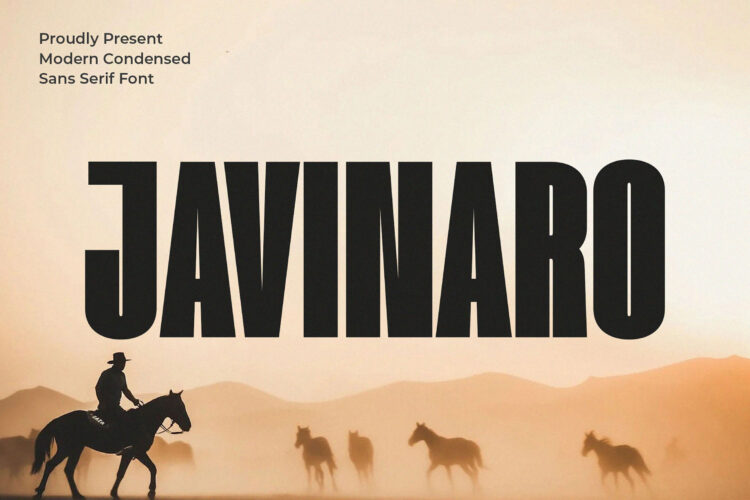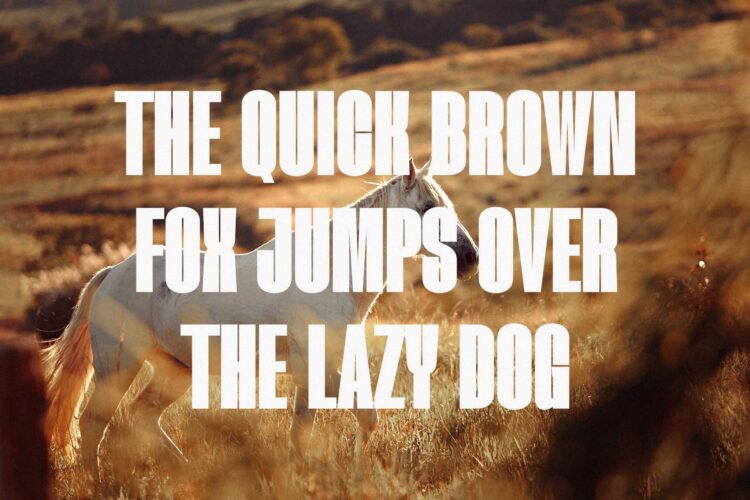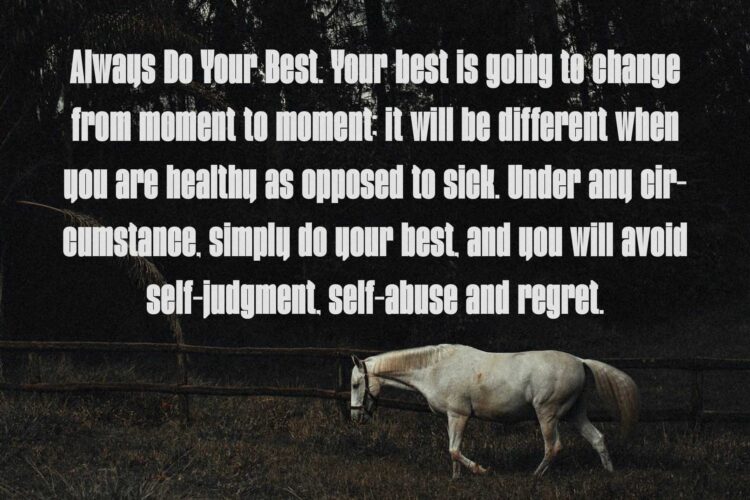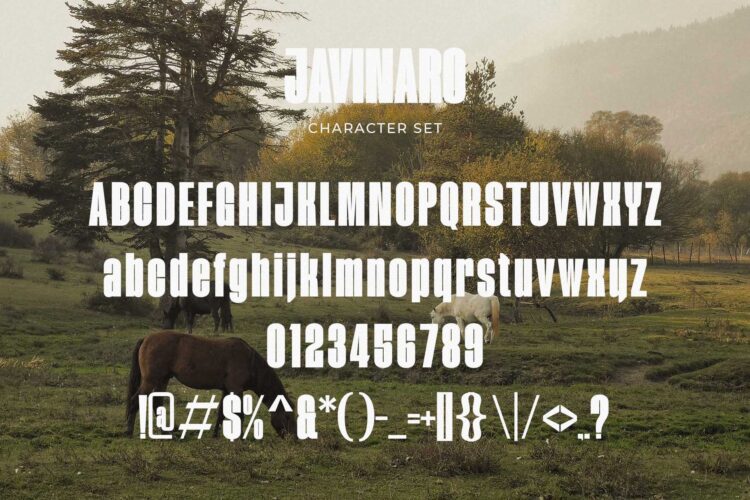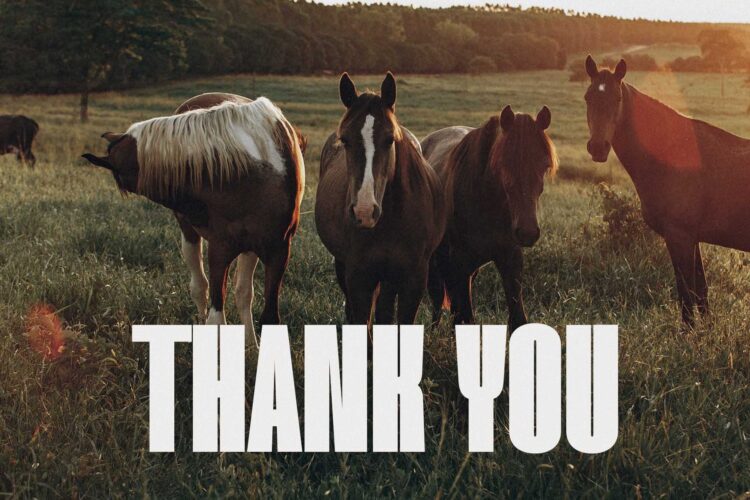
Introducing our new Javinaro, modern sans serif font with elegant style this is perfect for branding, logos, invitation, magazines, product packaging and more.
Javinaro – Modern Condensed Sans